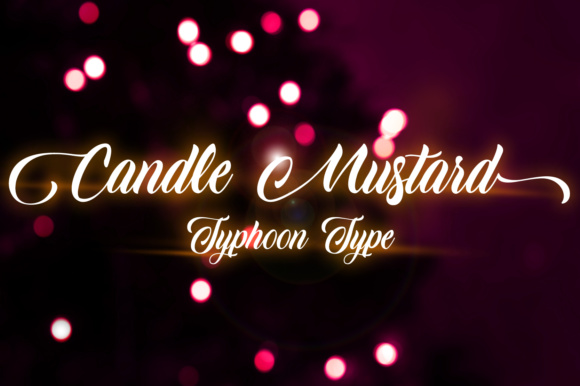
Candle Mustard Font
About Candle Mustard Font
Candle Mustard is a beautiful script font, ideal for use in designs that need a standout and unique display font. This font looks great in print and digital designs.